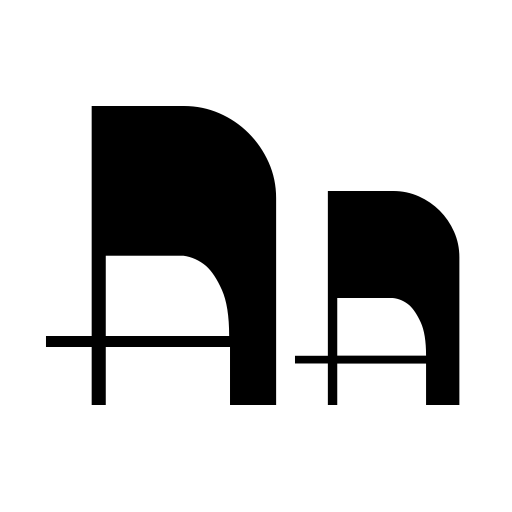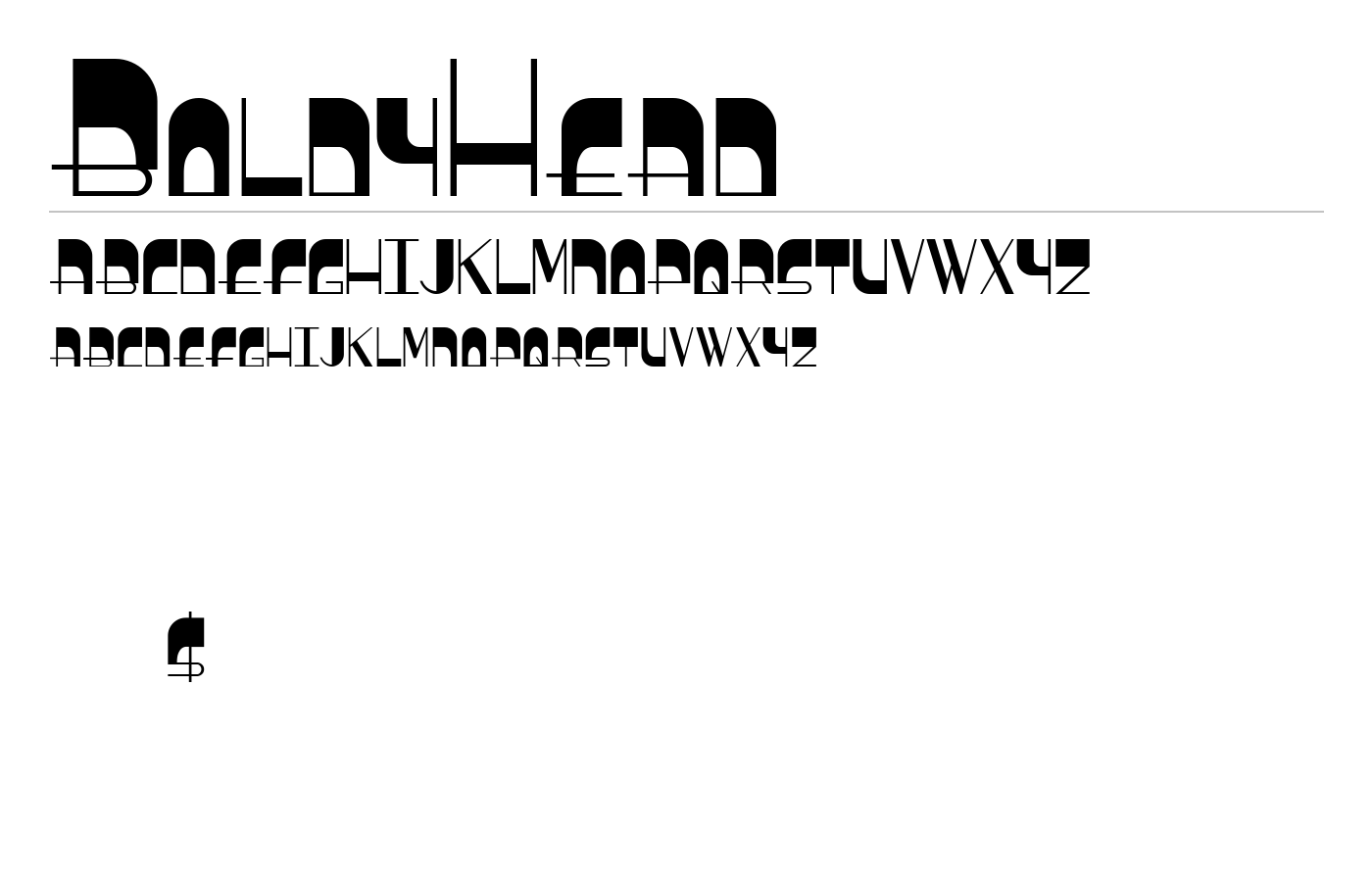
BoldyHead is a striking sans serif font that combines bold, heavy strokes with ultra-thin lines to create a futuristic and geometric look. Its unique blend of thick and slender elements, along with unconventional letterforms, makes it perfect for modern branding, headlines, and creative projects that need a strong, avant-garde personality. This font is best used where a bold, artistic statement is desired rather than for large blocks of text.
BoldyHead Font